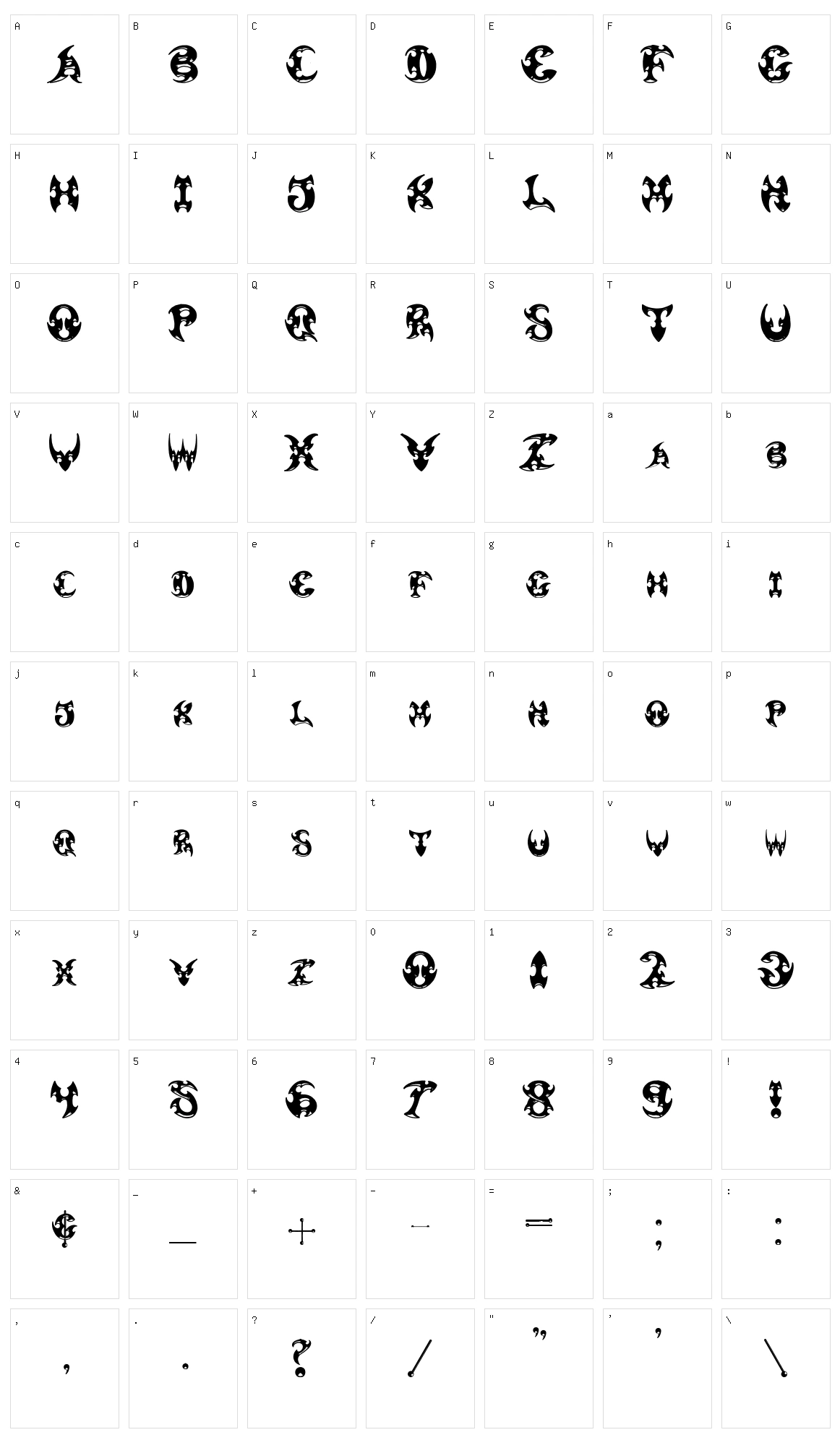
The free font Pauls 3-D Tribal is carefully designed by Tattoo Paul, showcasing a thoughtful balance of creativity and usability and belongs to the Gothic font family. When you download the ZIP file, it contains only 152.1 KB of font files, making it lightweight and quick to download. Please review the license details below to understand permitted usage and distribution rights. If license information is not available, we recommend using this font for personal projects only or contacting the author directly for commercial usage permissions.